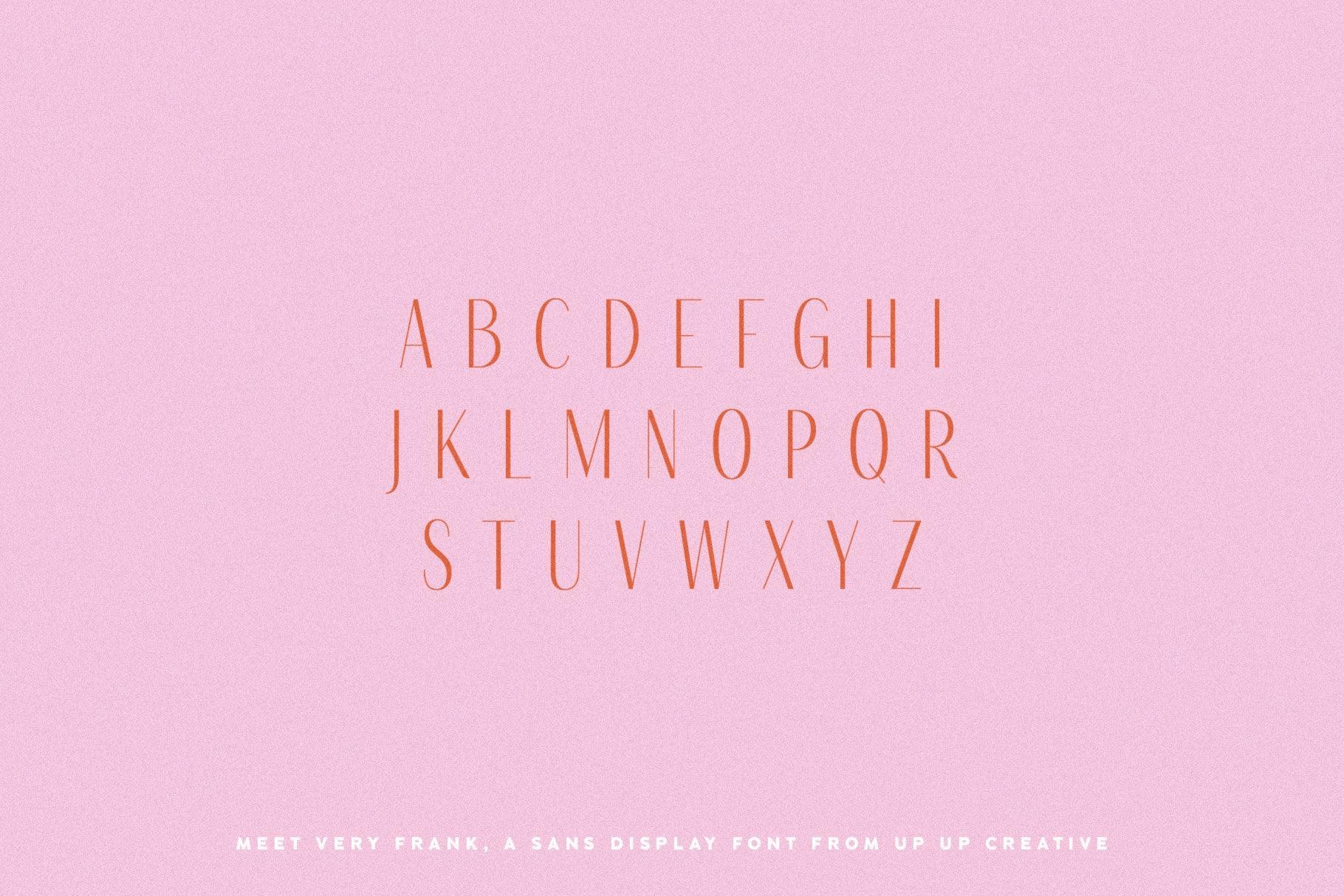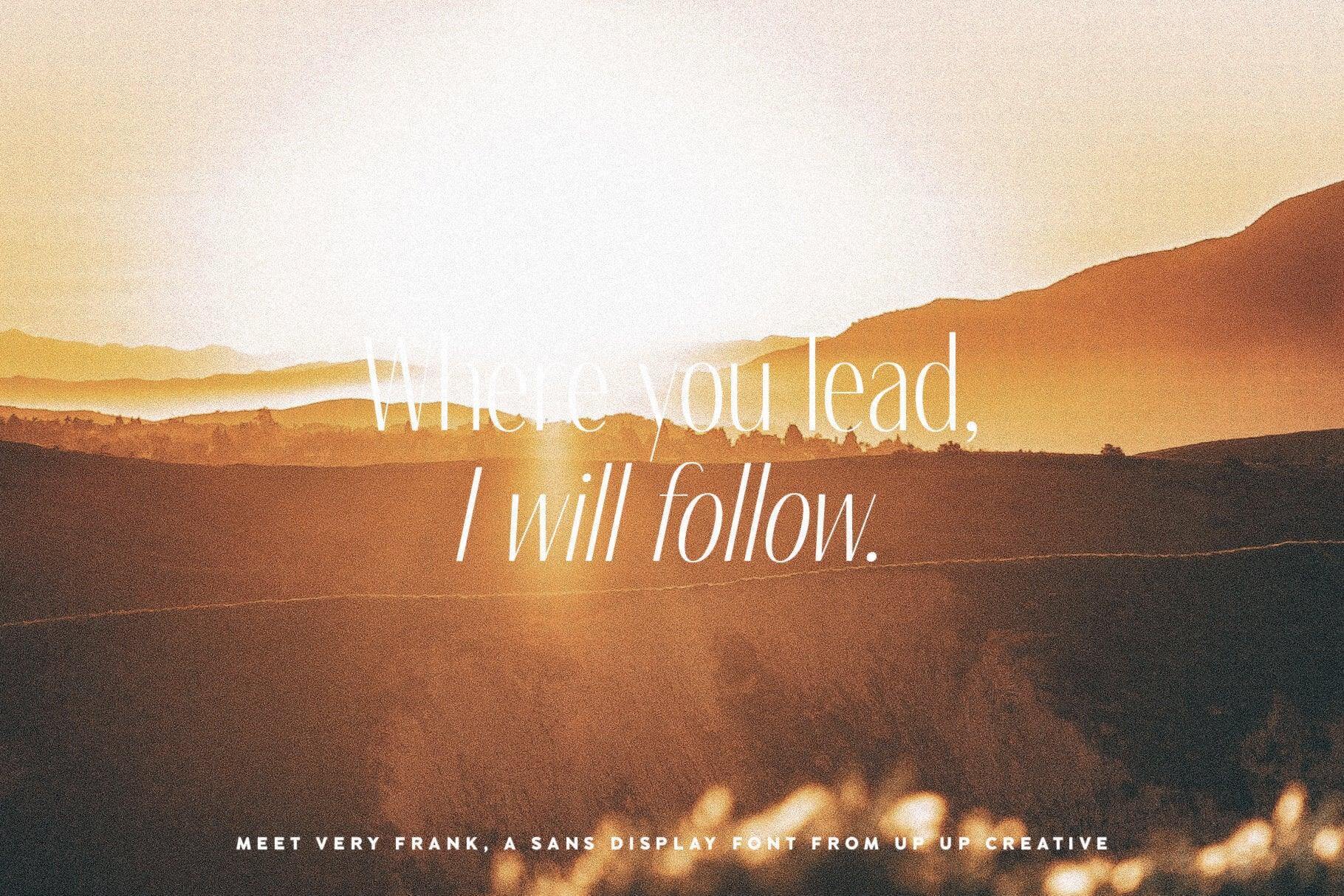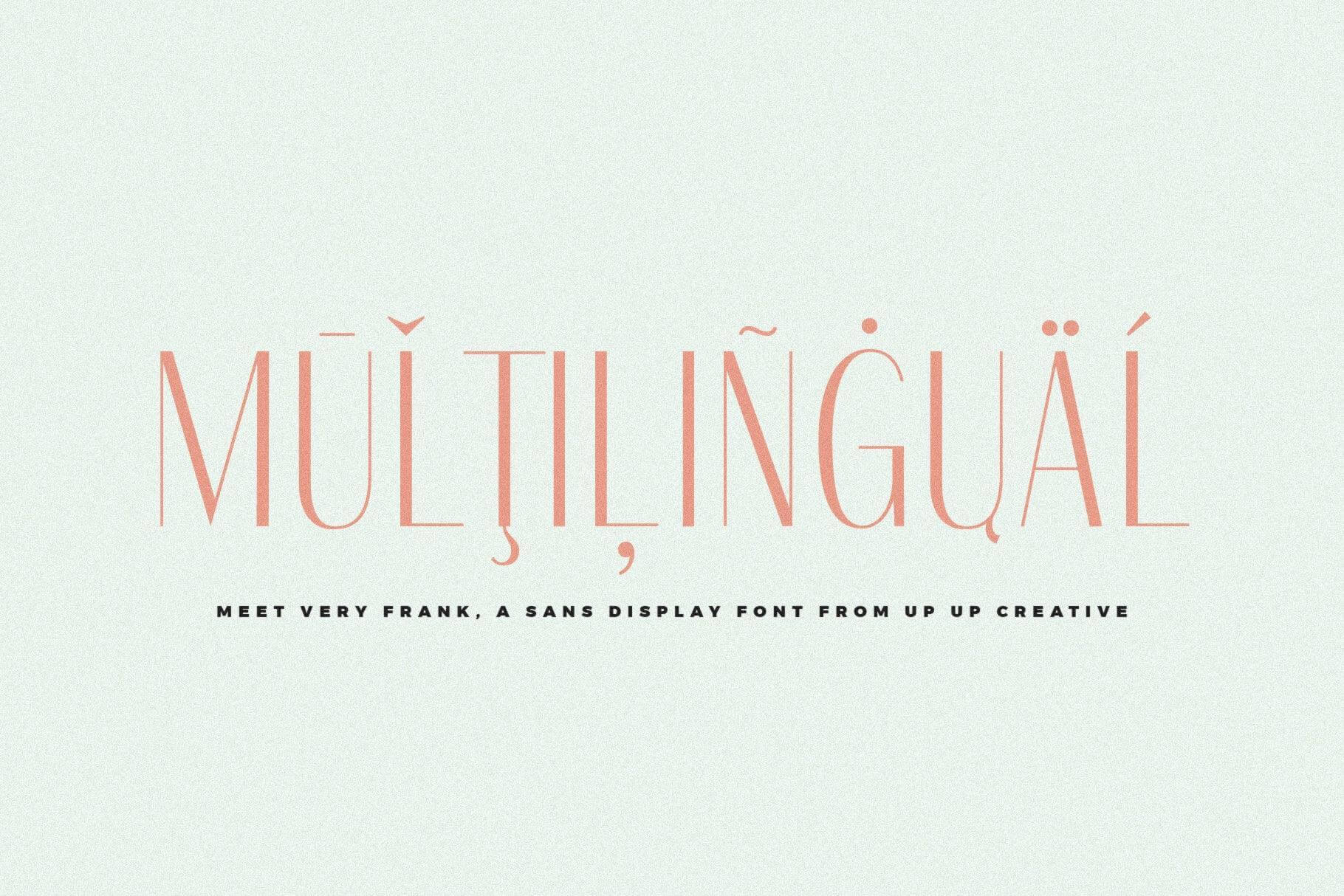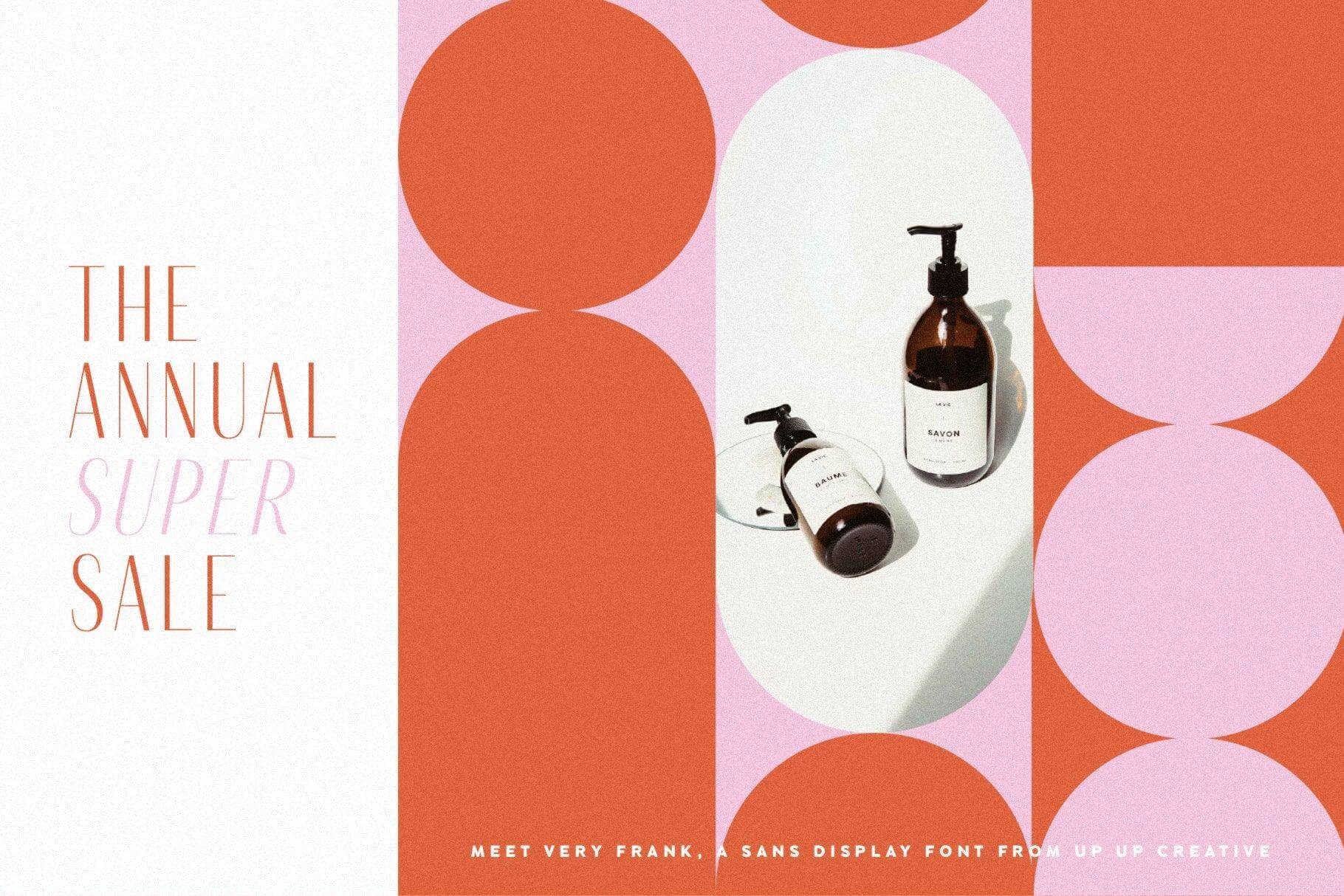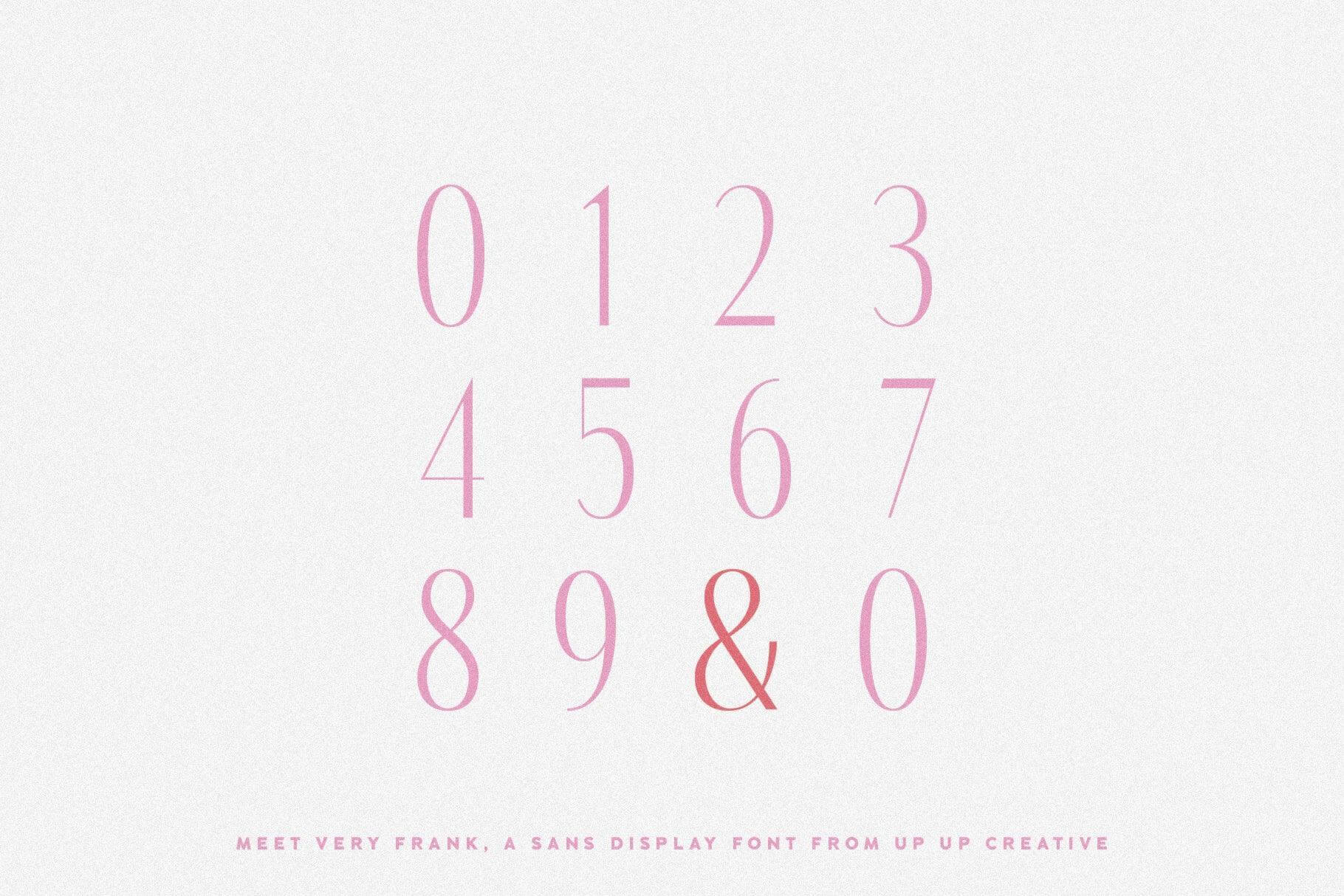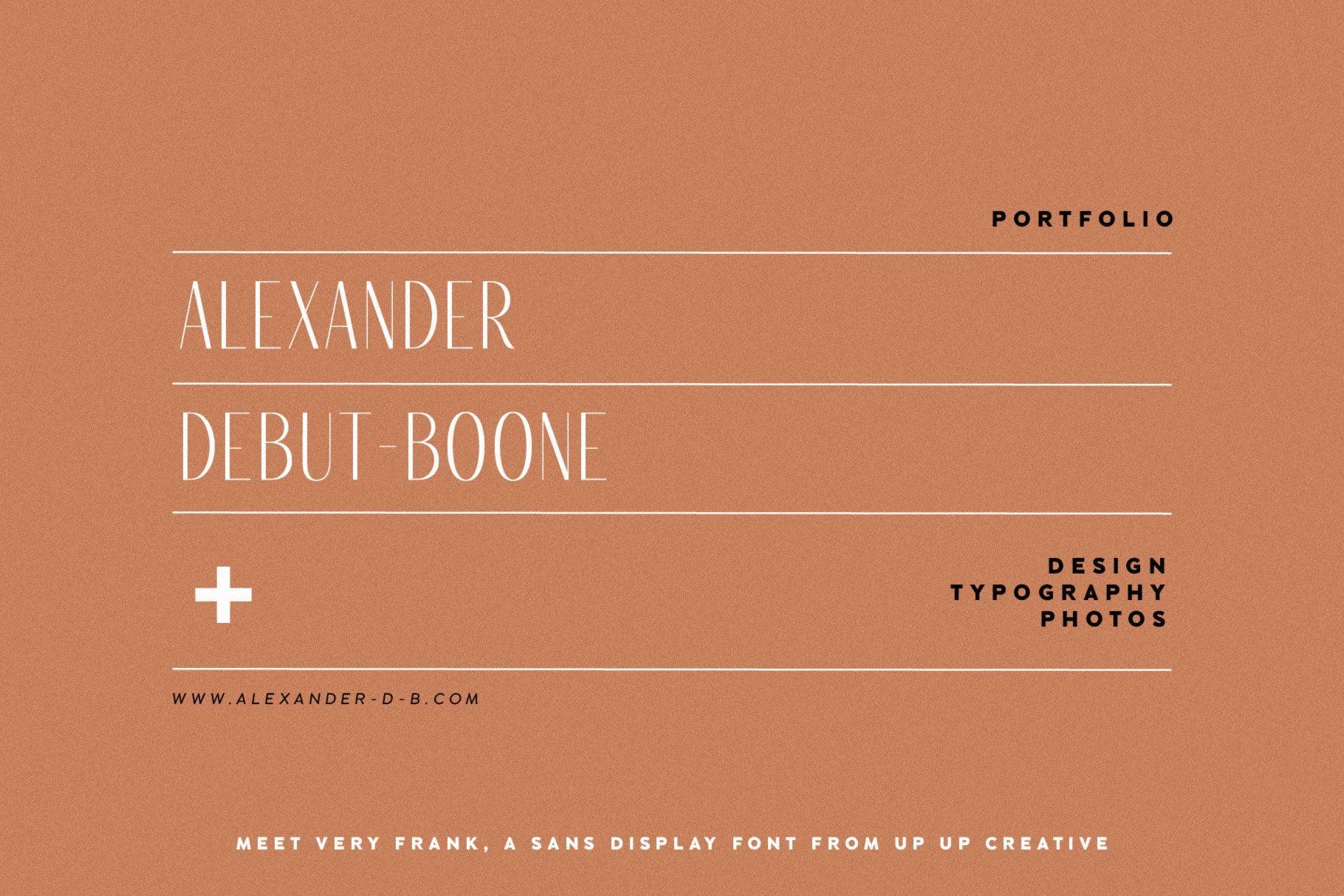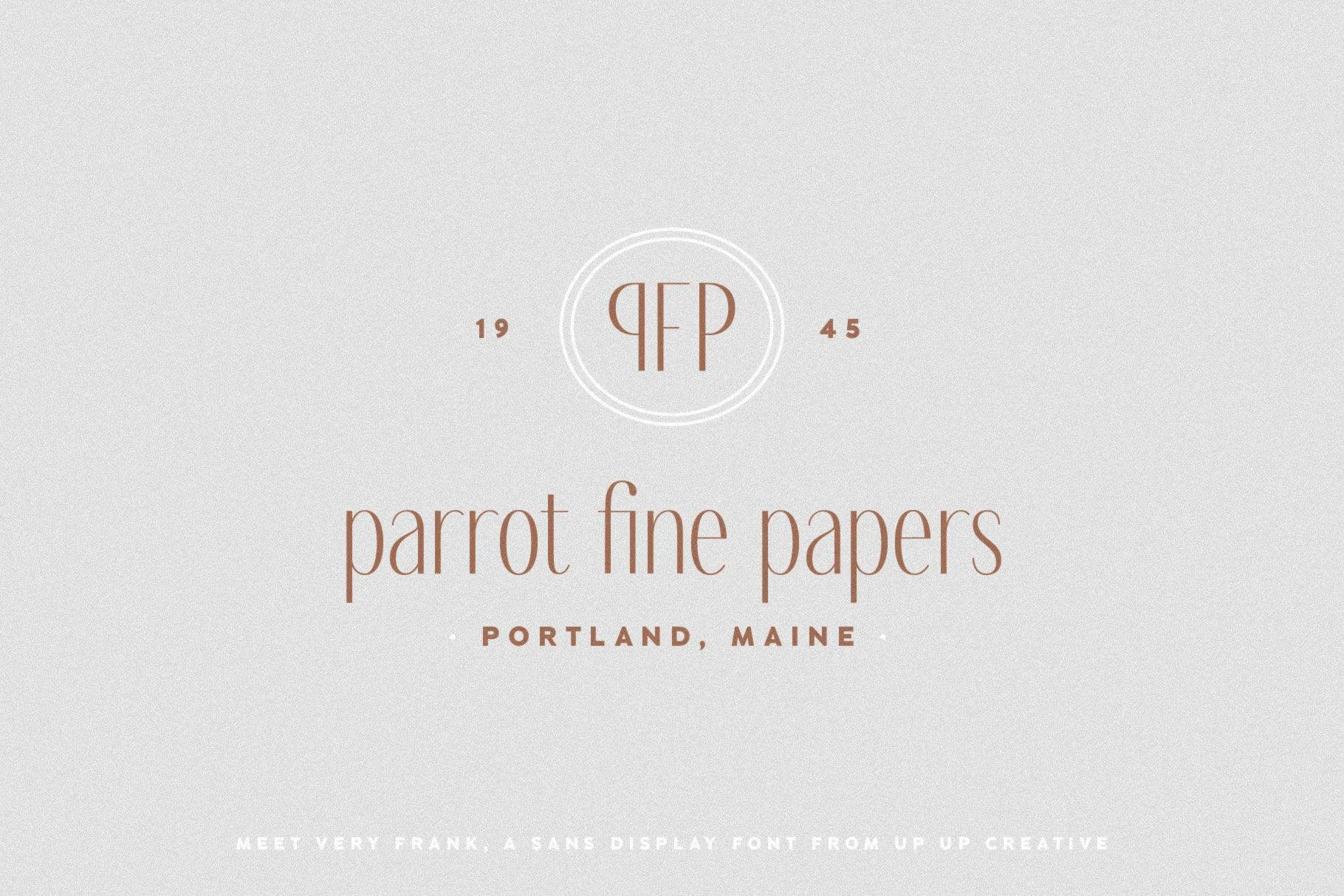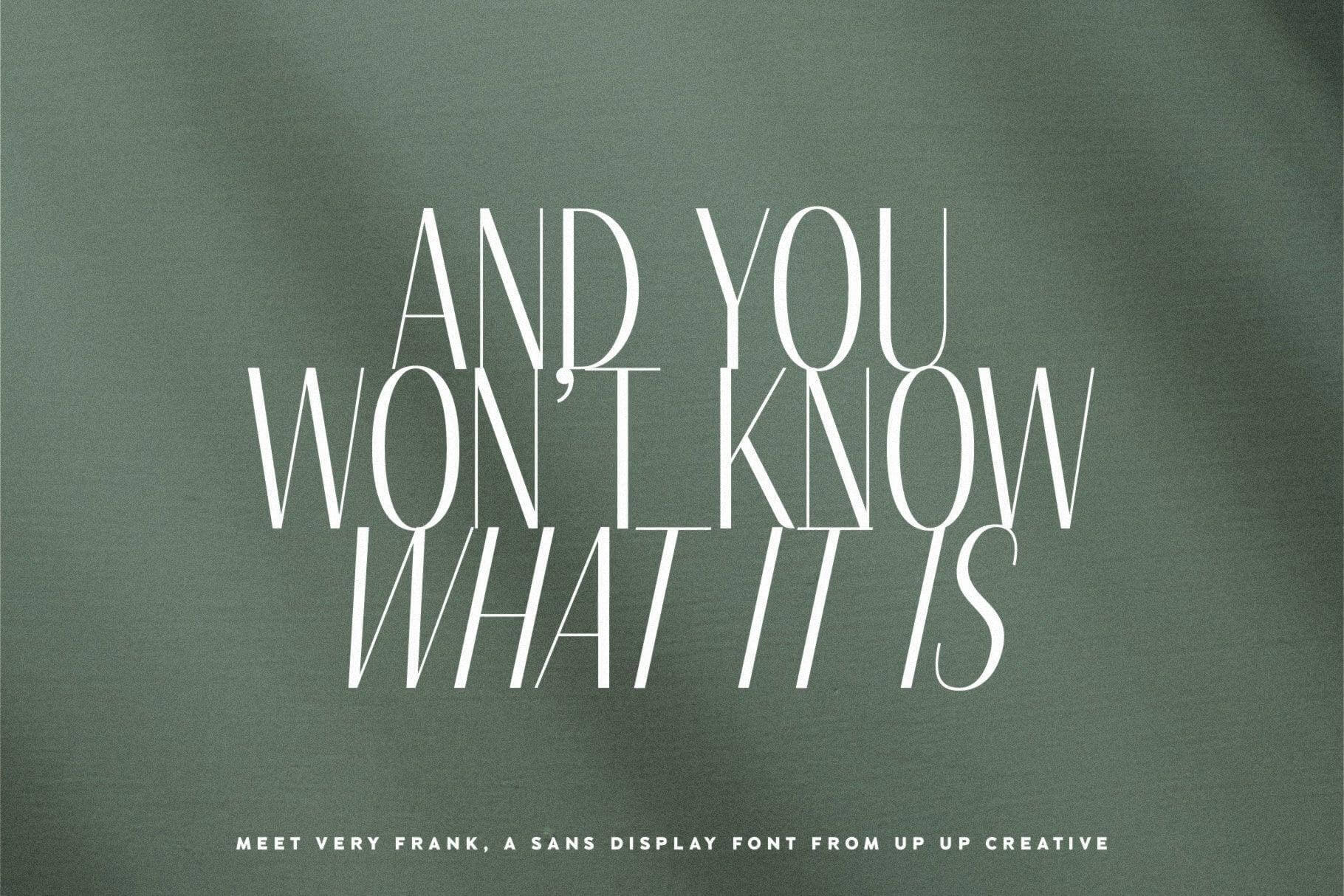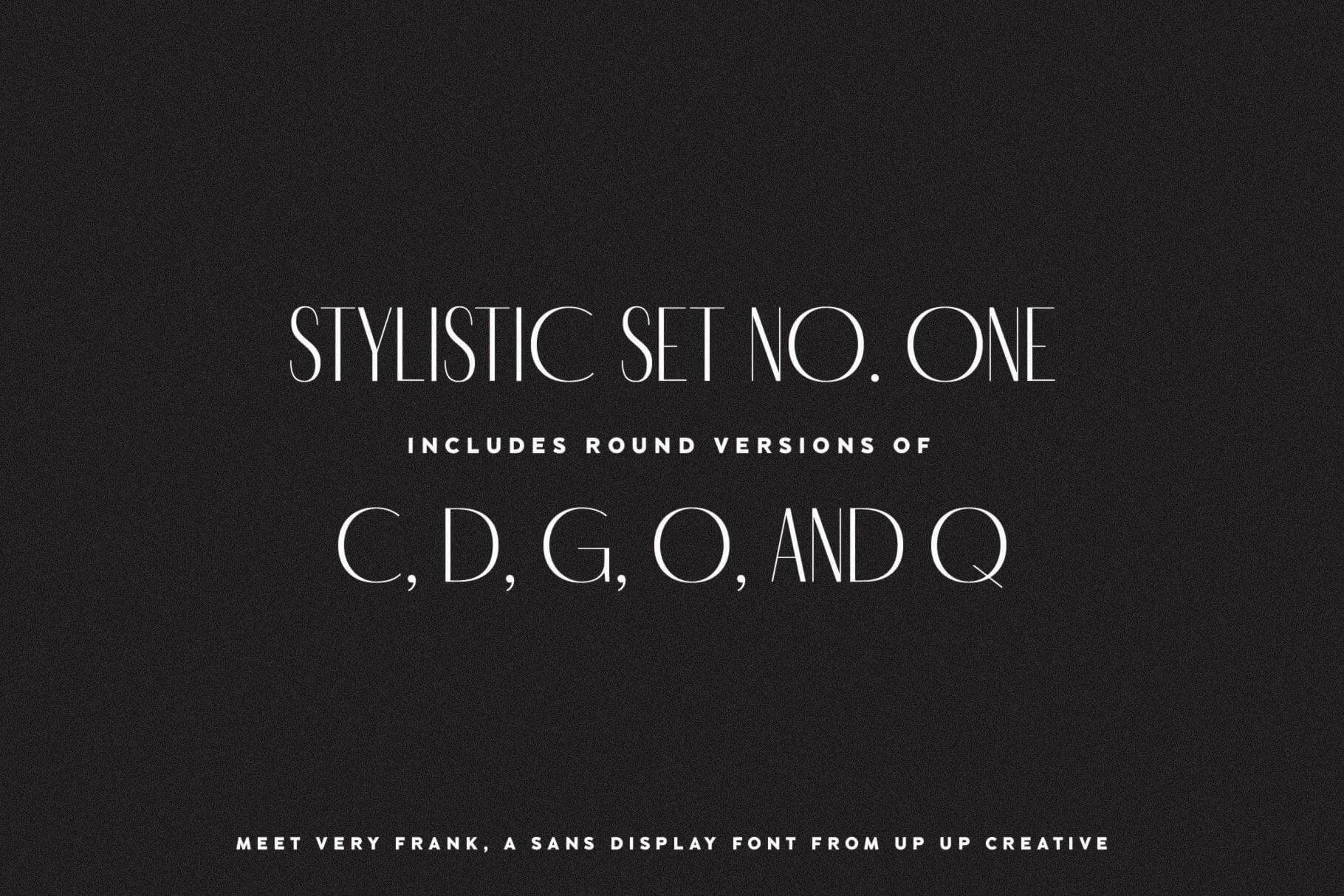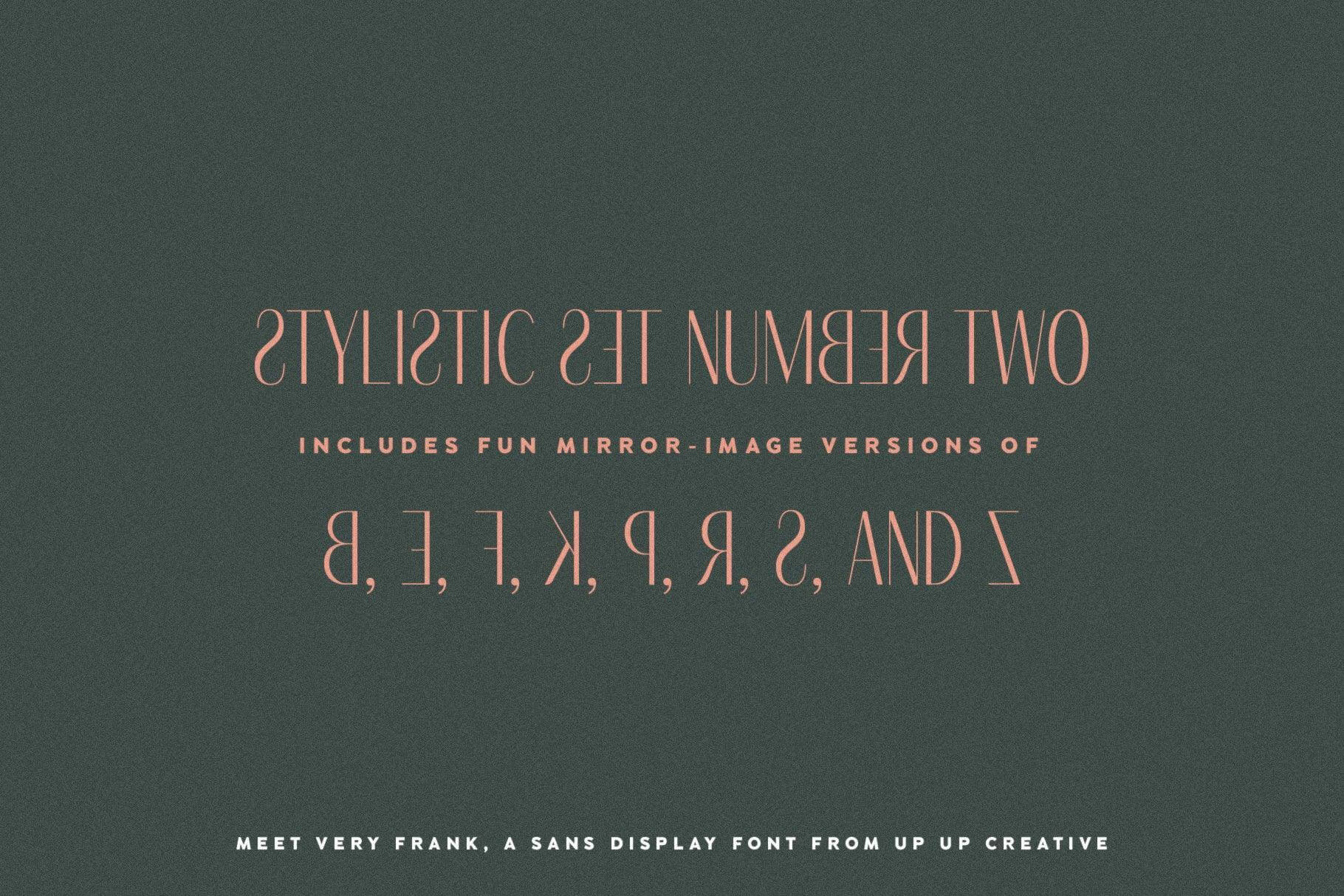
Very Frank, a Condensed Sans Serif Font with Italics
Meet Very Frank, a font that won’t feed you any lines or tell you any lies. Straight and tall and lacking in all but the subtlest softening details (look at the leg on that uppercase K, though…).
Very Frank is a condensed sans serif display font (in regular and italic) with tall, straightforward lines and subtle curves to soften things up. It includes a ton of standard and discretionary ligatures and two stylistic sets to spice things up and add some fun. It's perfect for headlines, editorial design, monograms, branding, logos, poster design, and more.
- character variants
- standard and discretionary ligatures
- fractions
- lining figures, oldstyle figures, proportional character variants
- standard and discretionary ligatures
- proportional and tabular figures
- localized forms (multi-language and multi-currency support)
- fractions, ordinals, and superscripts
- stylistic sets
Includes 74 ligatures
- Includes 536 glyphs
- Italic and Roman (Upright), each in one weight